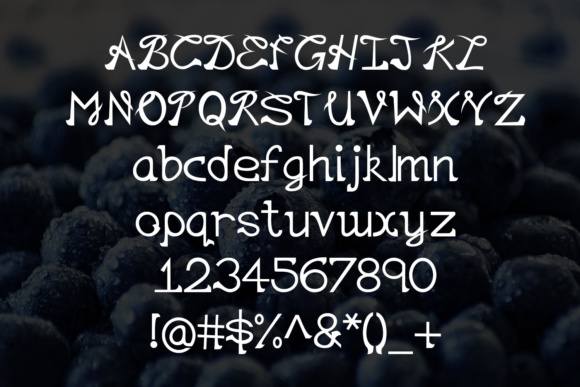
Introducing EP Lazy Font: The Perfect Addition to Your Design Arsenal
Are you a designer or crafter looking for a unique and elegant font to elevate your creative projects? Look no further than EP Lazy Font! This beautiful font is perfect for a variety of applications, including wedding cards, quotes, headings, blogs, logos, invitations, and more. With its effortless charm and versatility, EP Lazy Font is sure to become a staple in your design toolkit.
What Makes EP Lazy Font So Special?
EP Lazy Font is a carefully crafted typeface that exudes a sense of sophistication and elegance. Its lazy, cursive strokes and flowing lines create a sense of movement and fluidity, making it perfect for designs that require a touch of whimsy and romance. Whether you’re creating a wedding invitation, a blog post, or a social media graphic, EP Lazy Font is sure to add a level of sophistication and style.
Key Features of EP Lazy Font
• All Caps, Punctuation, and Numbers: EP Lazy Font includes a comprehensive set of characters, including all caps, punctuation, and numbers, making it perfect for a wide range of design applications.
• Effortless Elegance: The font’s lazy, cursive strokes and flowing lines create a sense of effortless elegance, making it perfect for designs that require a touch of sophistication.
• Versatility: EP Lazy Font is perfect for a variety of design applications, including wedding cards, quotes, headings, blogs, logos, invitations, and more.
EP Lazy Font is a dream come true for designers and crafters who are looking for a unique and elegant font to add to their toolkit. Whether you’re creating digital designs or handmade crafts, this font is sure to inspire your creativity and take your projects to the next level. Here are just a few ways you can use EP Lazy Font:
• Wedding Cards and Invitations: Add a touch of elegance and sophistication to your wedding cards and invitations with EP Lazy Font.
• Blog Posts and Social Media Graphics: Use EP Lazy Font to create eye-catching blog posts and social media graphics that are sure to grab attention.
• Logos and Branding: Create a unique and memorable logo for your business or brand with EP Lazy Font.
• Handmade Crafts: Add a personal touch to your handmade crafts, such as scrapbook pages, journal entries, and card making projects, with EP Lazy Font.
Tips for Using EP Lazy Font
Here are a few tips for getting the most out of EP Lazy Font:
• Experiment with Different Sizes: EP Lazy Font looks great in a variety of sizes, from small and delicate to large and bold.
• Pair with Other Fonts: Try pairing EP Lazy Font with other fonts to create a unique and eye-catching design.
• Use on Different Backgrounds: Experiment with using EP Lazy Font on different backgrounds, such as white, colored, or textured backgrounds.